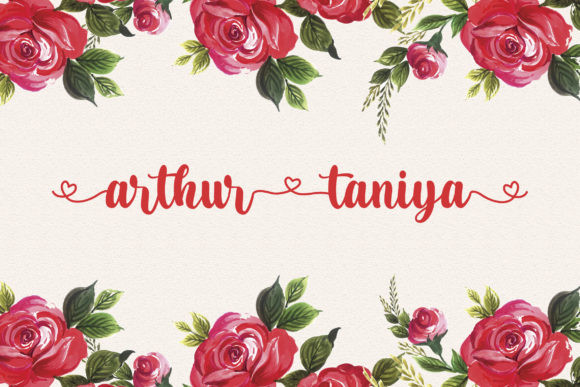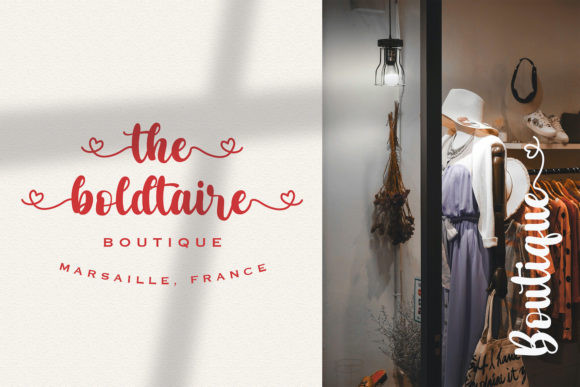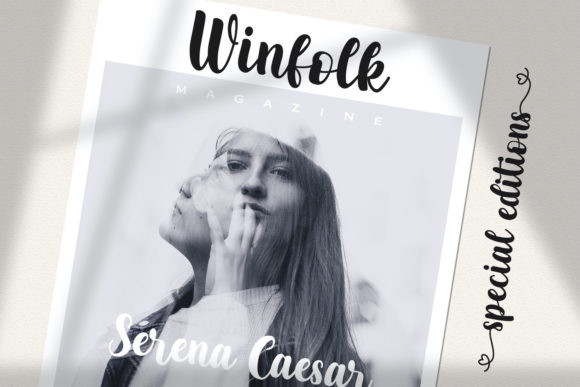
Arthur Taniya Font
Arthur Taniya is an exquisite script font with beautiful heart swashes, masterfully designed to become a true favorite. It maintains its classy calligraphic influences while feeling contemporary and fresh. Fall in love with it and bring your projects to the highest levels! This font is PUA encoded which means you can access the available glyphs and swashes with ease!